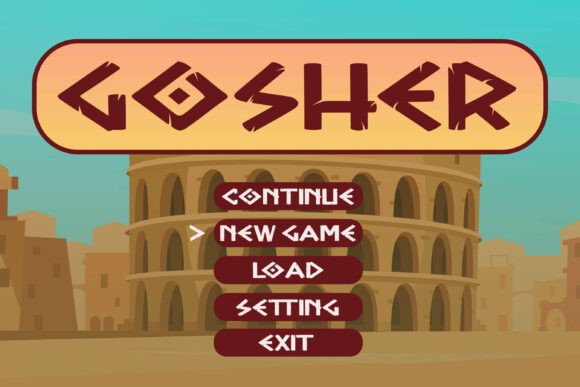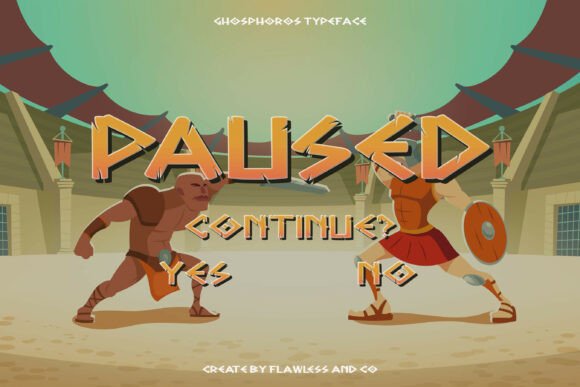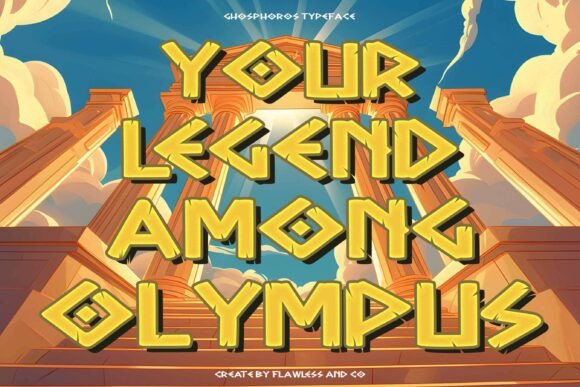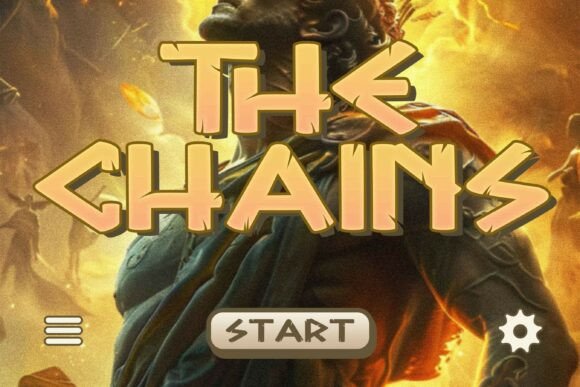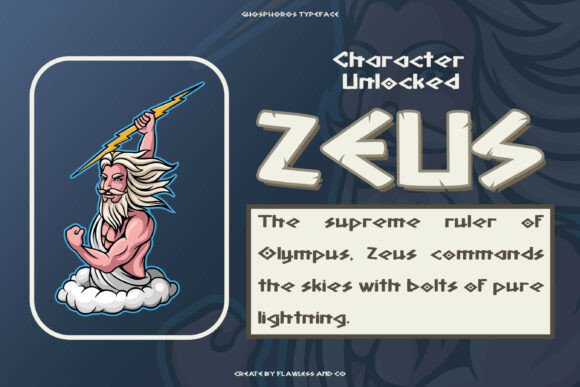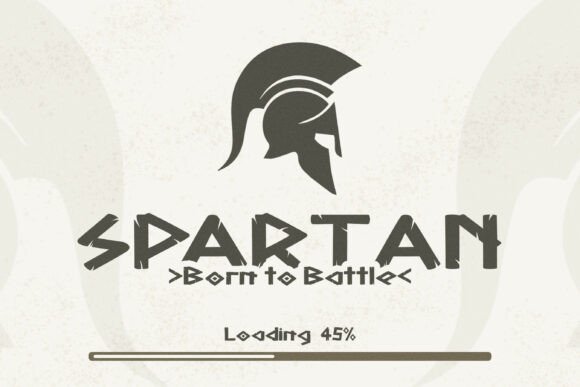
Unleash the Power of GHOSPHOROS: The Ultimate Font for Epic Designs
In the realm of typography, few fonts have managed to capture the essence of Greek mythology and epic storytelling as effectively as GHOSPHOROS. This bold and battle-ready typeface is forged from the very fabric of ancient legends, making it the perfect choice for designers, developers, and storytellers who want to infuse their work with a sense of power, legacy, and ancient might.
The Origins of GHOSPHOROS
GHOSPHOROS is more than just a font – it’s an experience. Inspired by the rugged, stone-carved monuments of ancient Greece, this typeface embodies the heroic spirit of epic tales and legendary quests. Its sharp angles and weathered edges evoke the grandeur of a bygone era, transporting your audience to a world of myth and wonder.
GHOSPHOROS boasts a range of design characteristics that make it the perfect choice for gaming interfaces, title screens, and fantasy-themed branding. Some of its key features include:
- Sharp Angles and Stone-Carved Edges: GHOSPHOROS’s rugged, weathered edges give it a battle-hardened look that’s perfect for epic RPGs, action-packed arenas, and mythological quests.
- Heroic Spirit: This font exudes a sense of power, courage, and determination, making it ideal for designs that require a strong, bold presence.
- Ancient Inspiration: GHOSPHOROS draws inspiration from the ancient world, lending a sense of history and legacy to your designs.
Perfect for Epic Designs
GHOSPHOROS is built to command attention, making it the perfect choice for a range of design applications, including:
- Gaming Interfaces: Add a touch of epic flair to your game’s UI with GHOSPHOROS’s bold, battle-ready typography.
- Title Screens: Make a lasting impression with GHOSPHOROS’s heroic, larger-than-life presence.
- Fantasy-Themed Branding: Infuse your brand with a sense of ancient power and mystique, perfect for fantasy novels, games, and otherworldly adventures.
Who is GHOSPHOROS for?
GHOSPHOROS is perfect for:
- Developers: Add a touch of epic flair to your game’s UI and branding with GHOSPHOROS’s bold, battle-ready typography.
- Storytellers: Bring your epic tales to life with GHOSPHOROS’s heroic, larger-than-life presence.
- Designers: Infuse your designs with a sense of ancient power and mystique, perfect for fantasy-themed branding and epic RPGs.
In conclusion, GHOSPHOROS is more than just a font – it’s a gateway to a world of epic storytelling and legendary design. With its bold, battle-ready typography and ancient inspiration, this font is perfect for designers, developers, and storytellers who want to create work that echoes through the ages. So why wait? Unleash the power of GHOSPHOROS today and bring your designs to life with a sense of power, legacy, and ancient might.
Get Ready to Experience the Legend